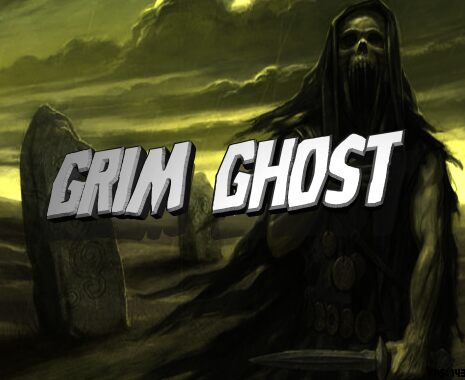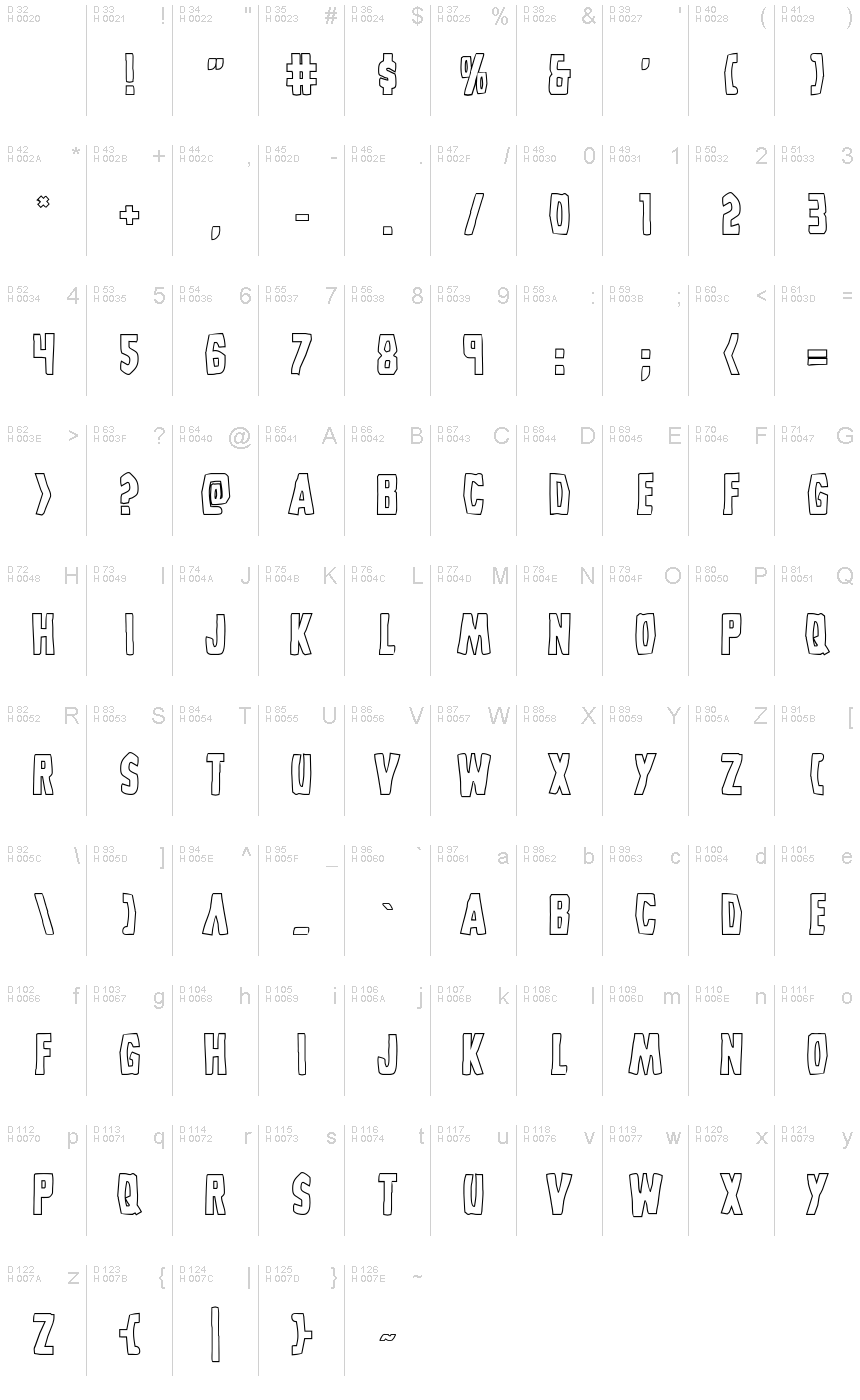
Grim Ghost Outline font by Iconian Fonts embodies a blocky, playful style with an informal vibe. Featuring irregular letter shapes and outlined designs, this condensed display font is bold and naturally scary. An excellent option for attention-grabbing headlines, it has an overall unsettling feel which makes it also ideal for Halloween projects.
Grim Ghost is an old-school, pulp horror font that includes a full character set and the Euro symbol.